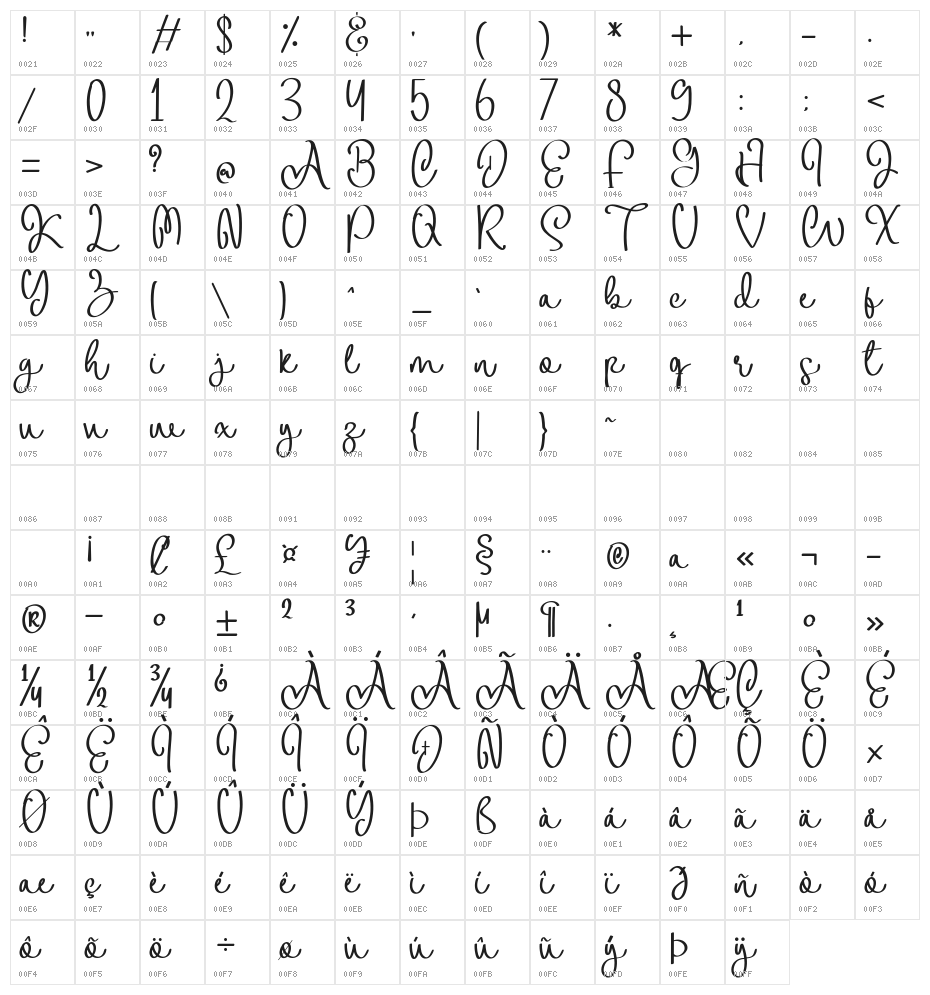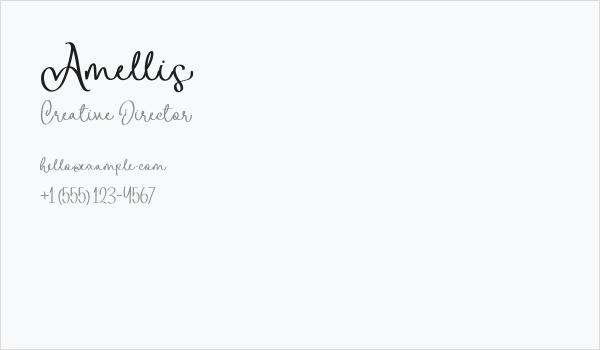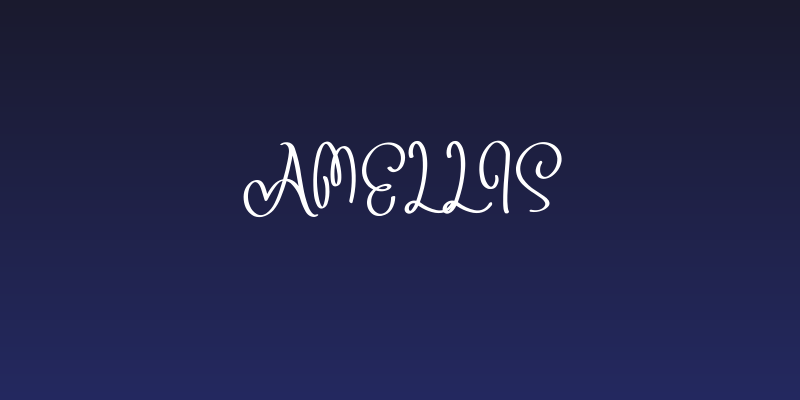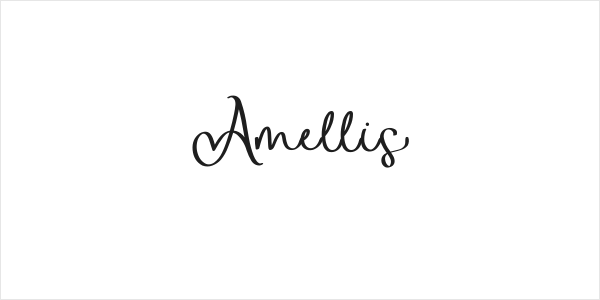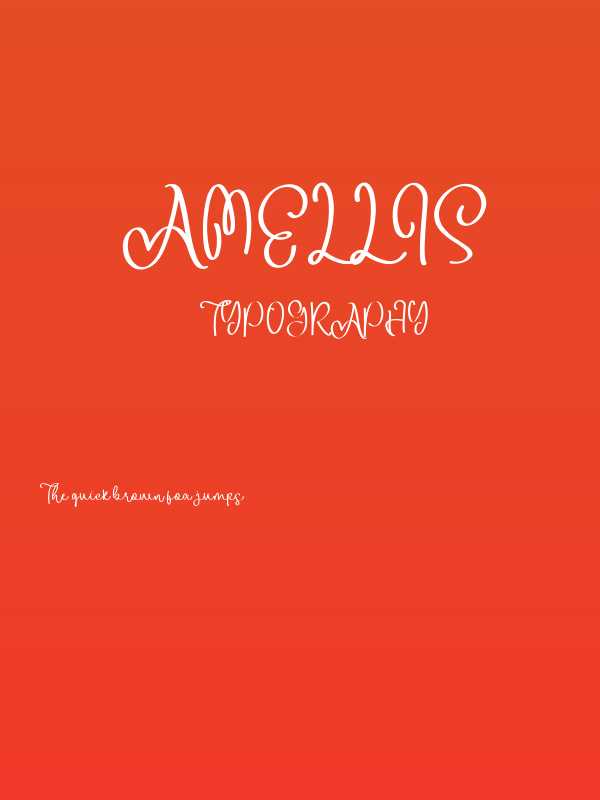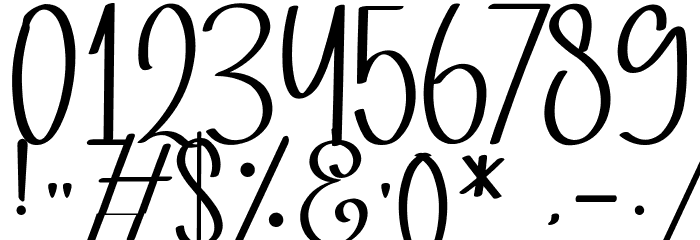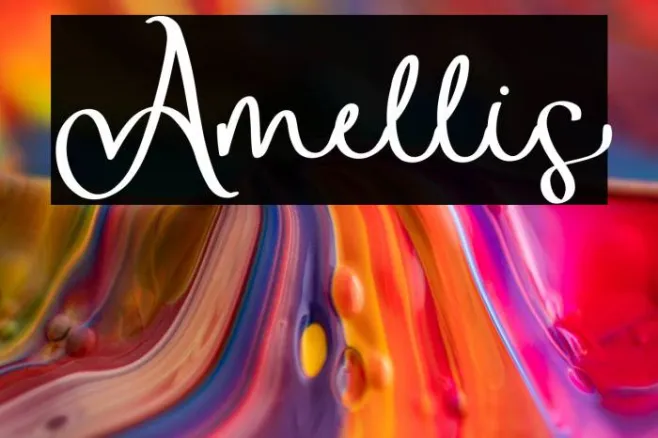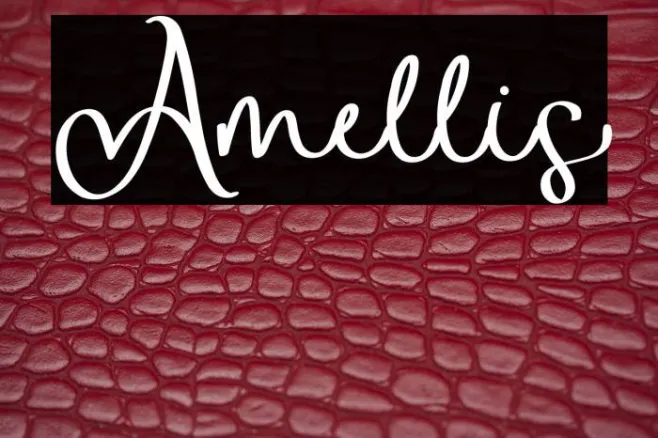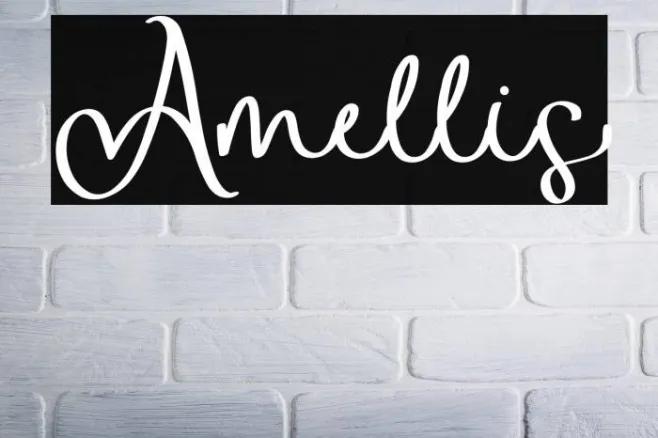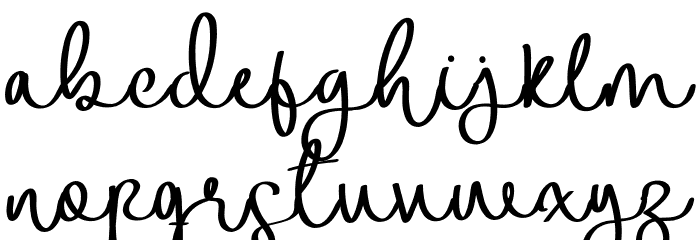
Amellis Font
Amellis Description
This font features a playful and elegant script style, characterized by its flowing, cursive letterforms. The uppercase letters are bold and expressive, with sweeping curves and loops that give a sense of movement and grace. The lowercase letters maintain a consistent style, with a slightly more restrained design that complements the uppercase. The numerals are tall and slender, maintaining the overall aesthetic of the font. Special characters are integrated seamlessly, adding versatility to the font's use. The font's design is both modern and timeless, making it suitable for a variety of creative projects.
| Proposed Projects | Ideal for wedding invitations, greeting cards, branding, and social media graphics. |